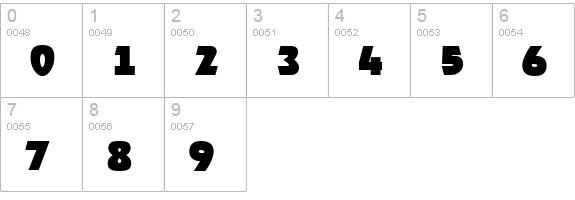
OnStageSerial-Black-Regular is a maximum-weight, dramatic variant in the OnStageSerial typeface family \xE2\x80\x94 well suited to maximum-impact headlines, posters, and packaging.
OnStageSerial-Black-Regular is a modern and elegant font that commands attention with its bold and stylish appearance. Its clean lines and confident strokes make it perfect for titles, headlines, and other prominent text. This versatile typeface exudes sophistication and professionalism, making it ideal for a wide range of design projects. What's even better is that OnStageSerial-Black-Regular is available for free download at FontsMarket.com. This means you can elevate your designs without breaking the bank. Whether you're working on branding materials, posters, invitations, or any other creative project, OnStageSerial-Black-Regular is sure to make a strong and memorable impression. Download it today and add a touch of class to your designs!